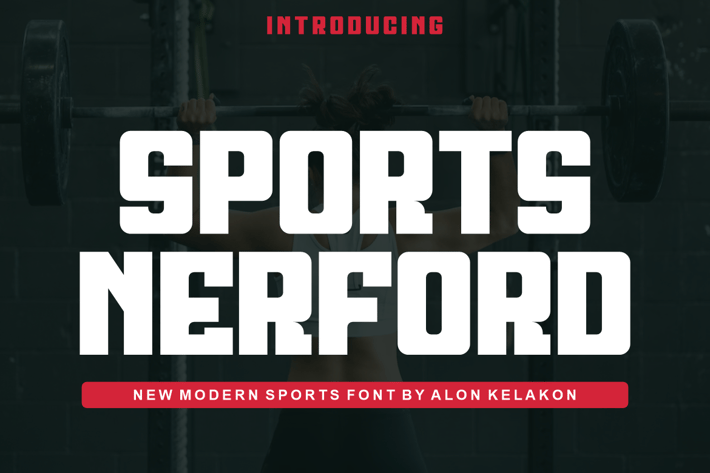
Sports Nerford Font
Sports Nerford Font is unique . Ready to use for your design like labeling, clothing, movie sceen, poster, movie title, gigs, album covers, logos, and much more.